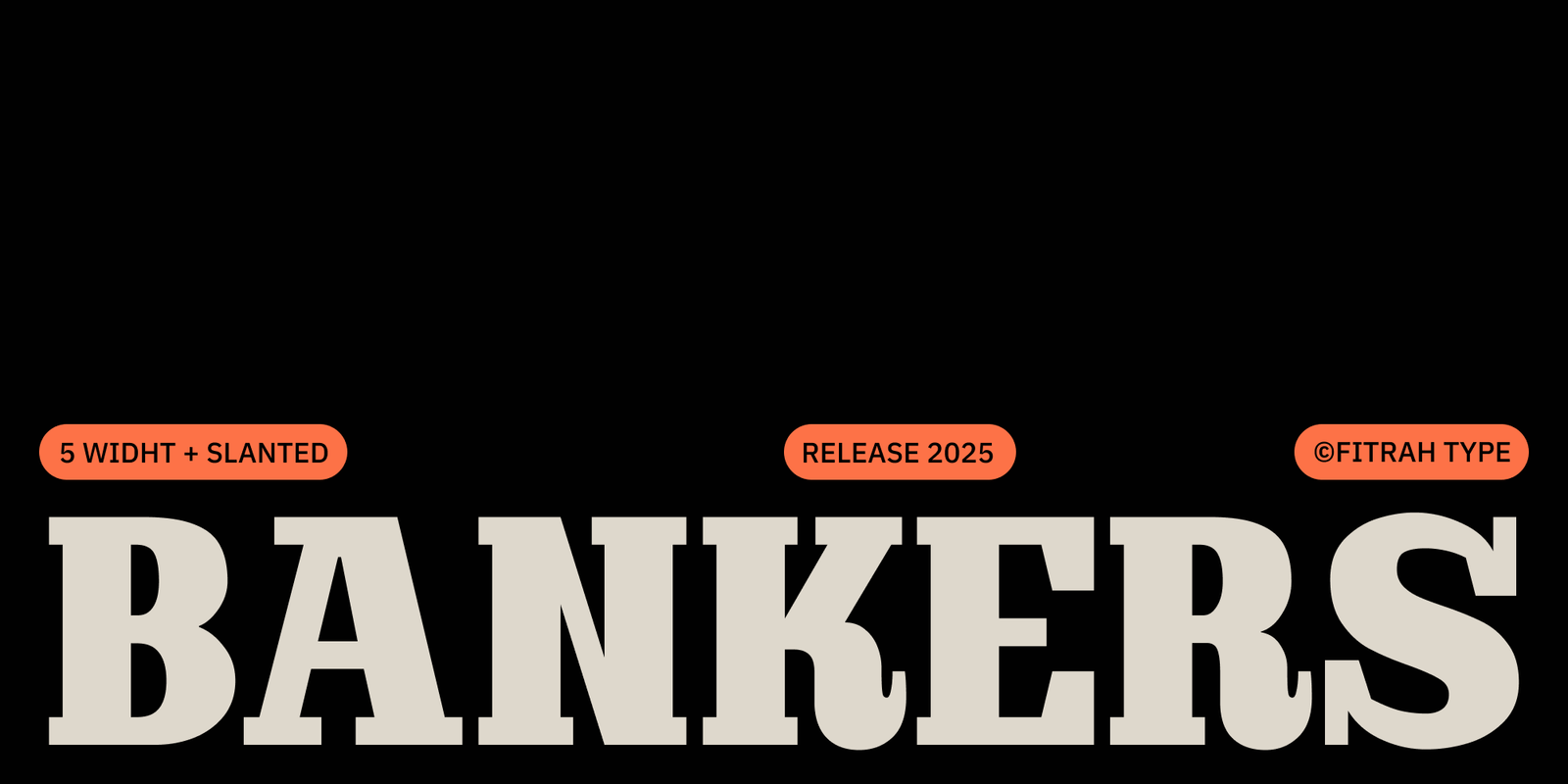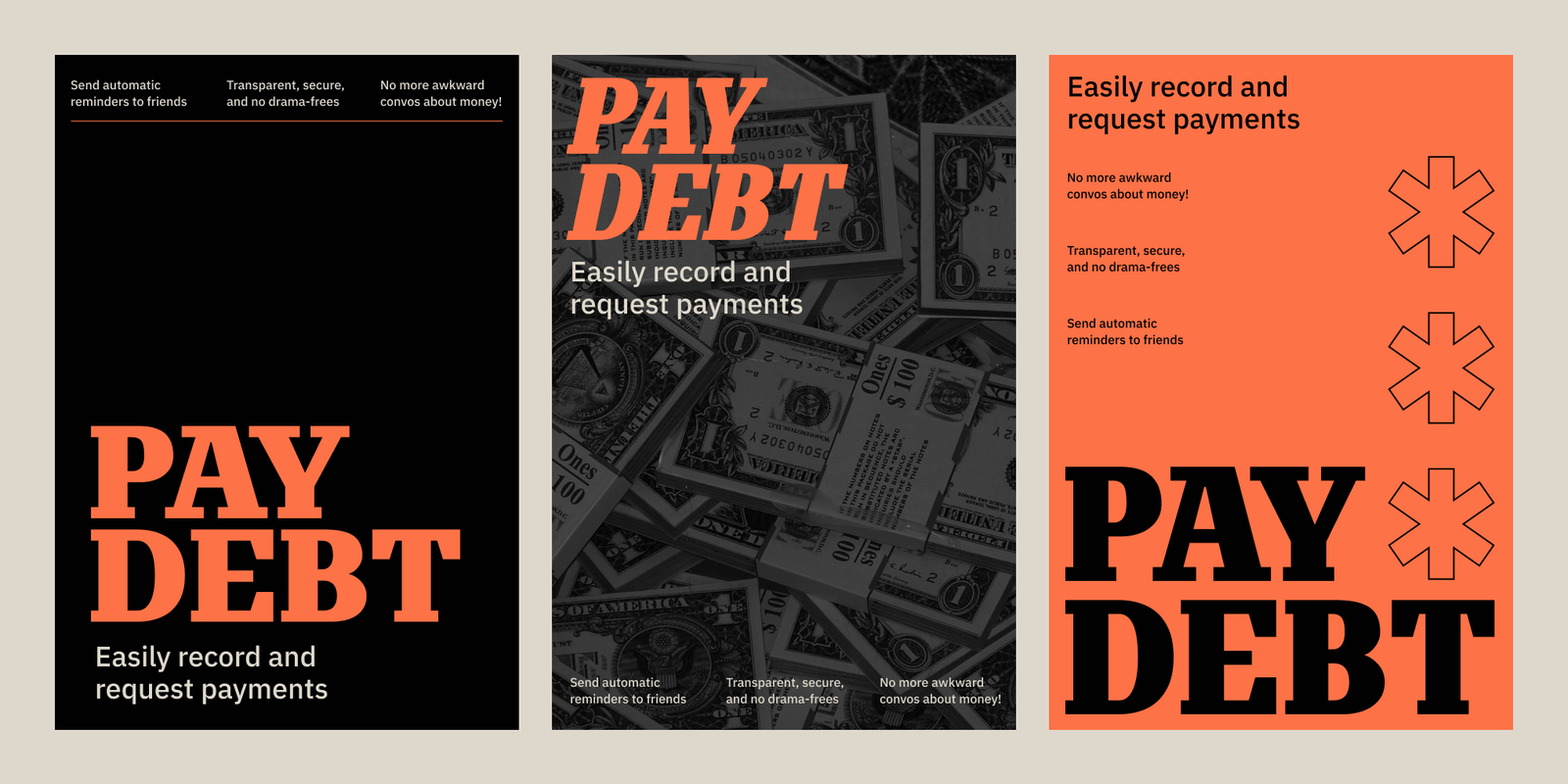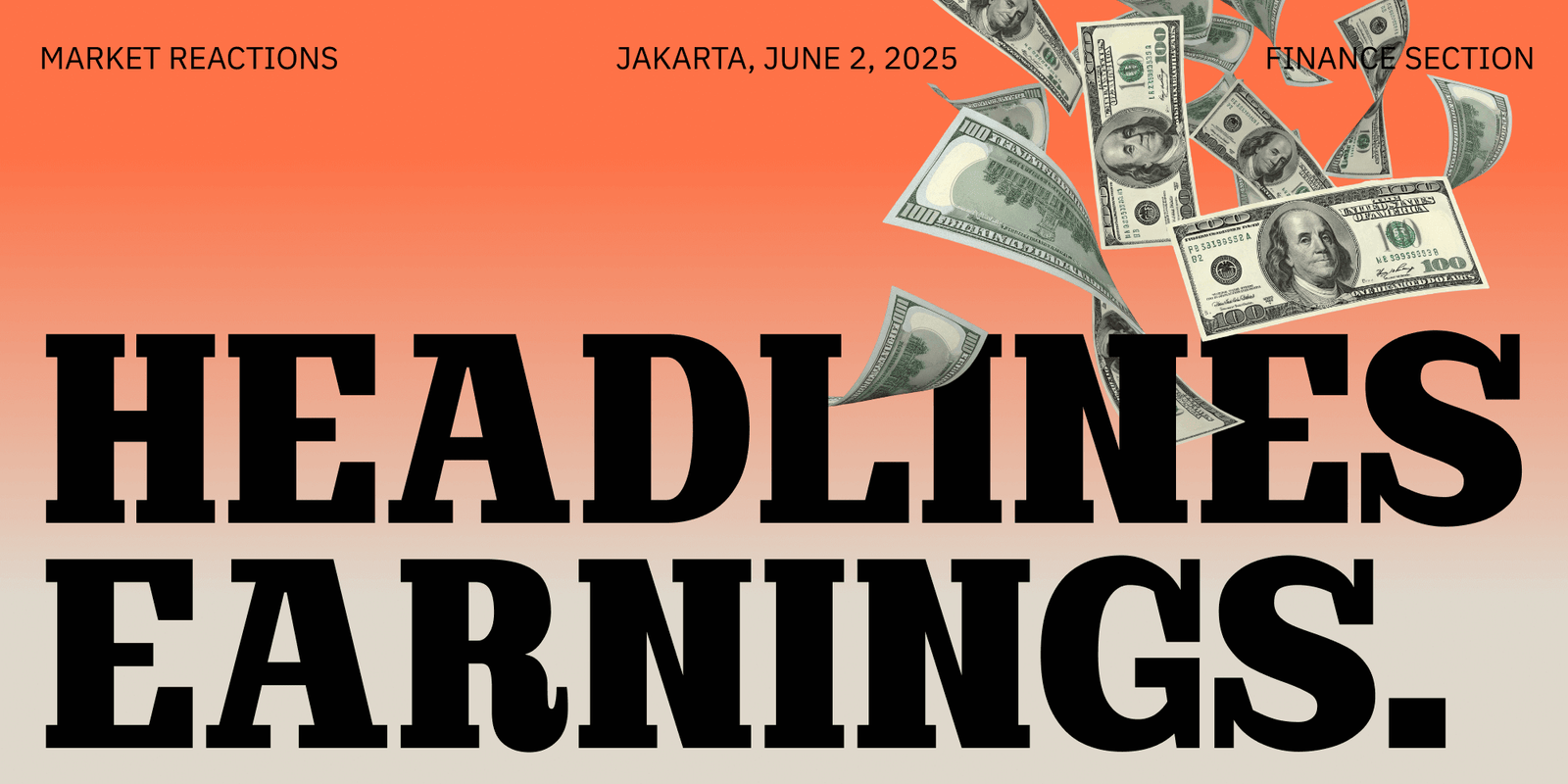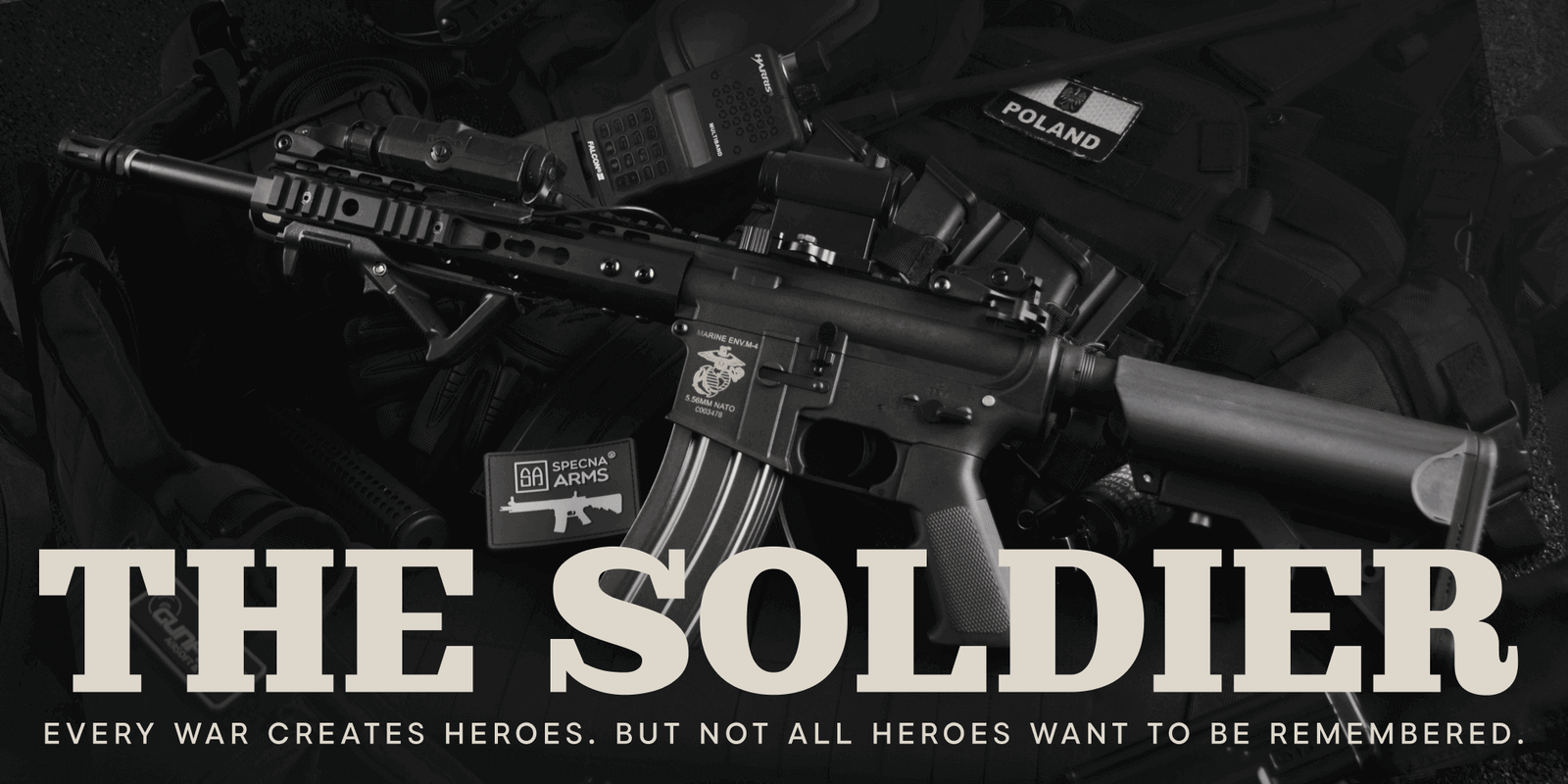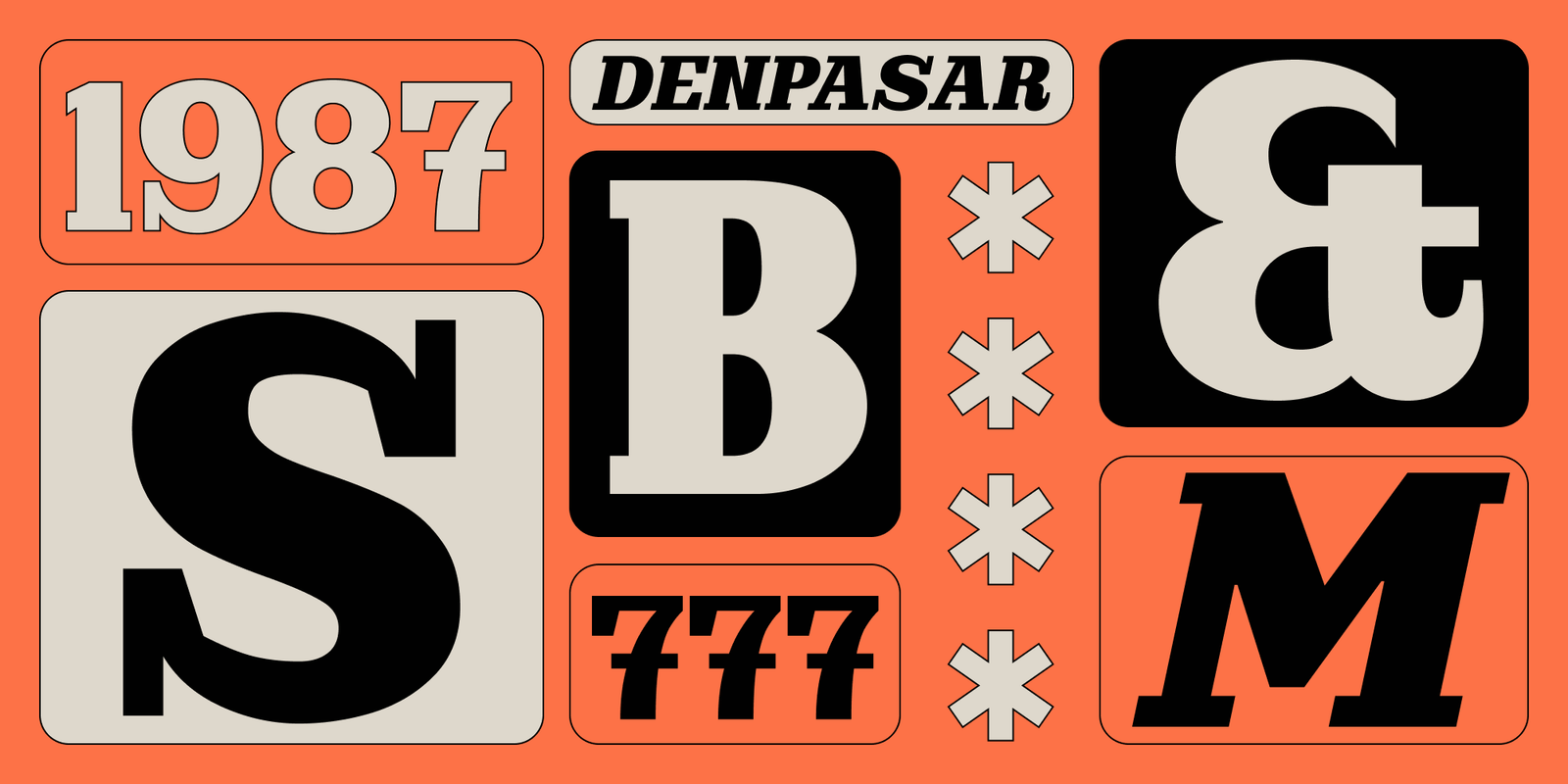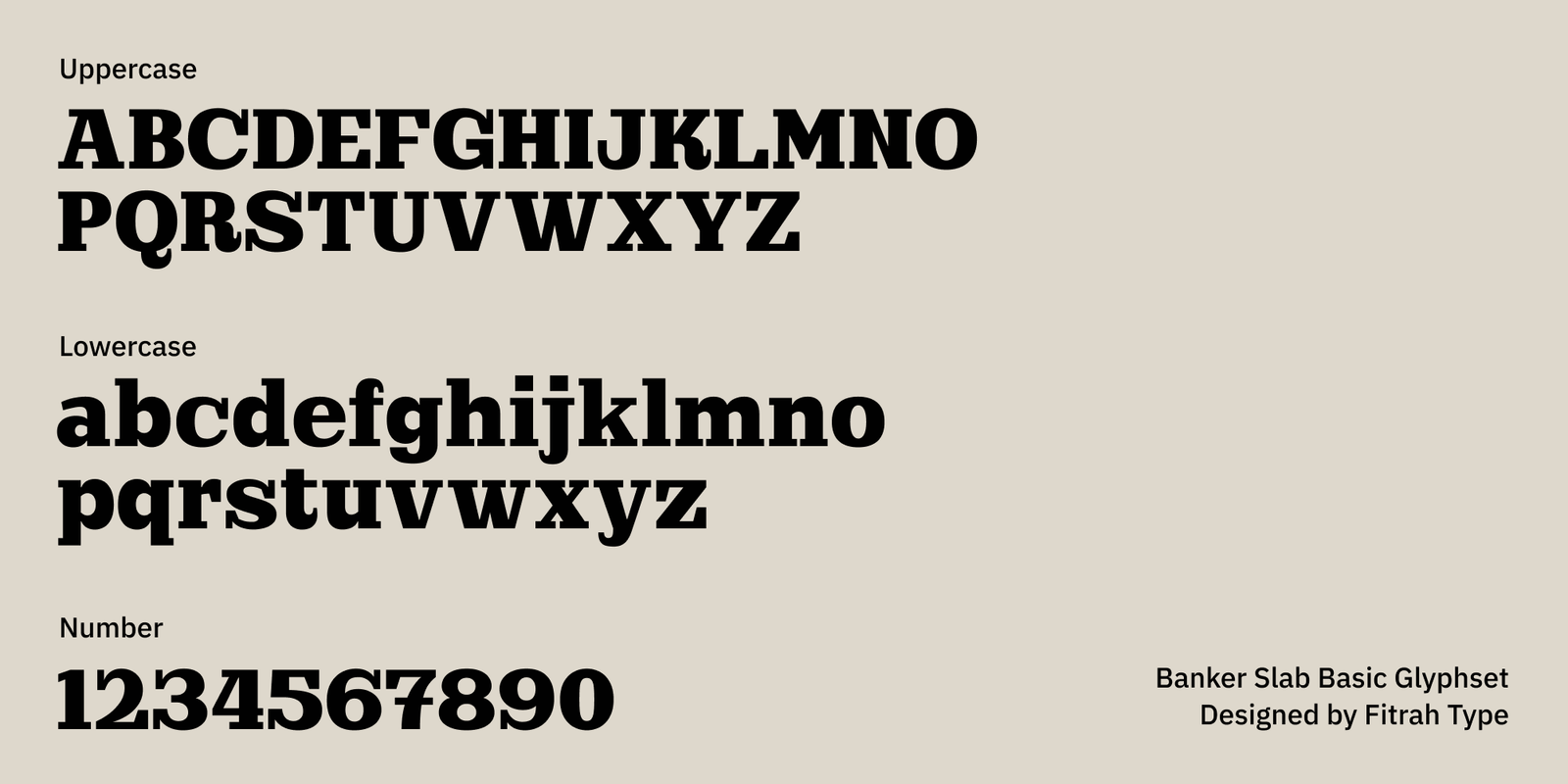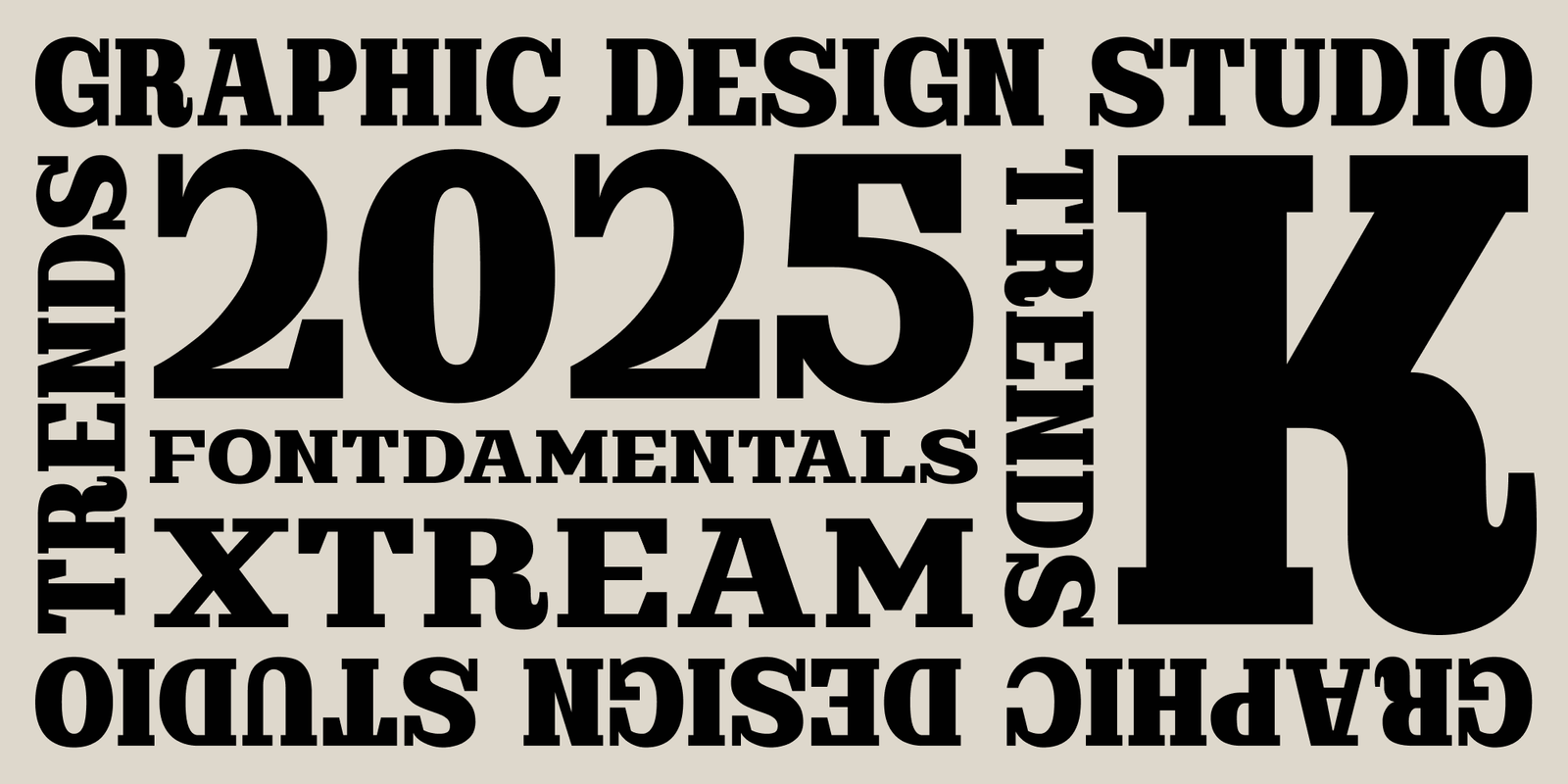
Bankers Slab
About Bankers Slab Font Family
Bankers Slab is a bold, structured slab serif font family designed for impact, versatility, and timeless appeal. Inspired by classic financial typography with a modern twist, Bankers Slab offers a wide range of widths — from Condensed to Expanded — as well as Slanted styles for dynamic compositions.
Whether you’re working on editorial layouts, branding systems, signage, packaging, or powerful typographic statements, Bankers Slab provides the tools to create bold, legible, and confident designs. Its strong vertical emphasis and all-caps letterforms make it ideal for headlines, logos, and display use.
Key Feature :
• Slab serif font with industrial elegance
• 5 widths: Condensed, Semi-Condensed, Regular, Semi-Expanded, Expanded
• Slanted styles included for additional emphasis
• All caps font for striking headlines and logos
• Excellent readability across print and digital
• Great for branding, posters, magazines, packaging, and more